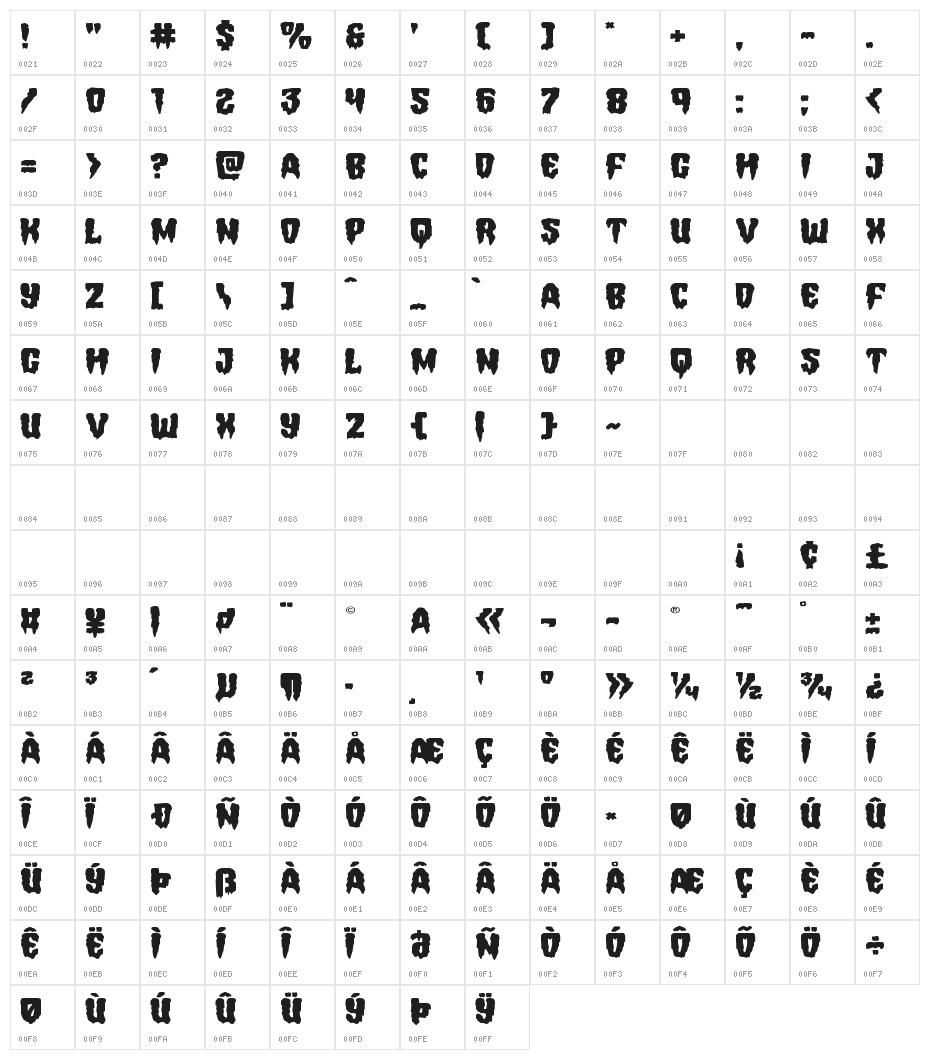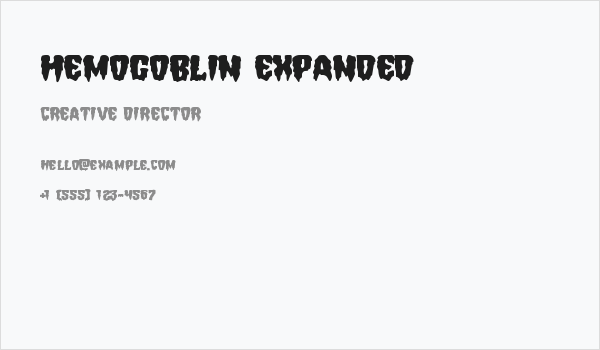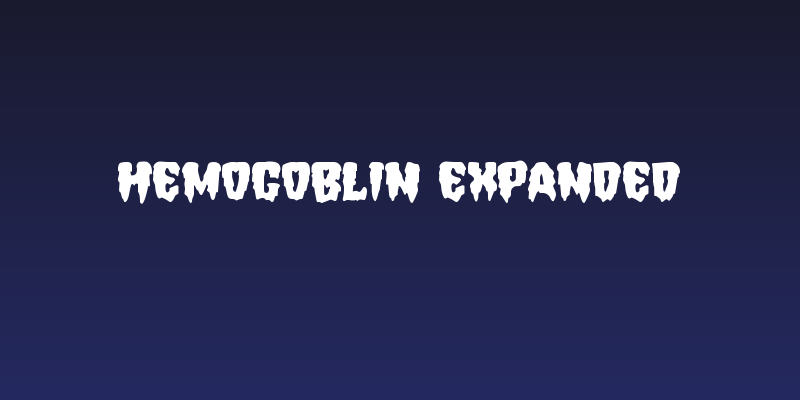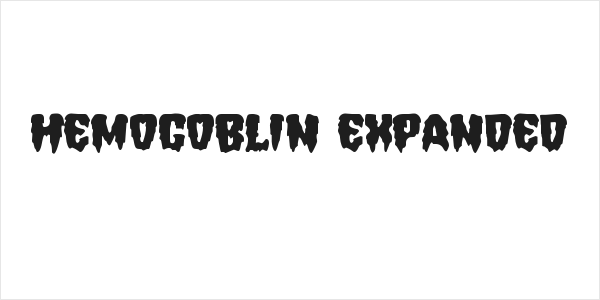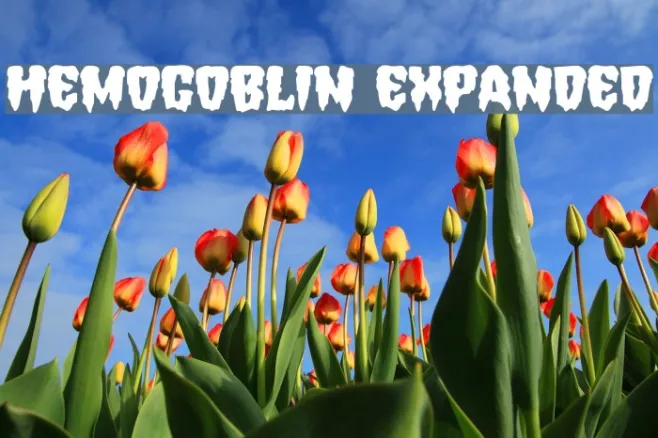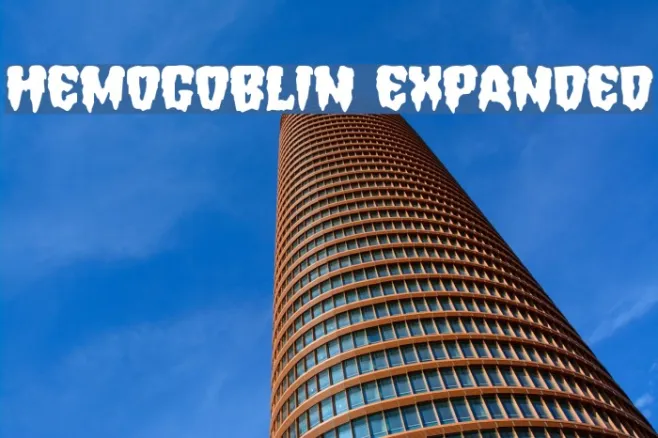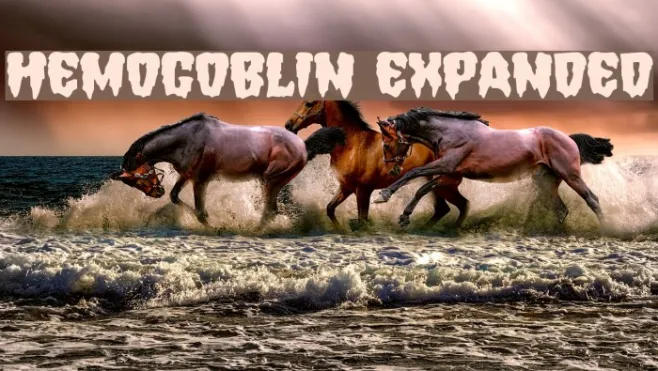
Hemogoblin Expanded Font
Hemogoblin Expanded Description
This font features a bold and dramatic style with an expanded width, giving it a strong and impactful presence. The characters have a jagged, irregular outline that evokes a sense of horror or the macabre, making it ideal for themes related to Halloween or gothic aesthetics. The uppercase and lowercase letters maintain a consistent style, with exaggerated serifs and thick strokes that enhance its decorative appearance. The numbers and special characters follow the same design principles, ensuring a cohesive look across all text elements.
HEMOGOBLIN-EXPANDED UPPERCASE
HEMOGOBLIN-EXPANDED LOWERCASE
HEMOGOBLIN-EXPANDED OTHER CHARS
| Proposed Projects | Ideal for Halloween posters, horror movie titles, themed party invitations, and spooky event branding. |